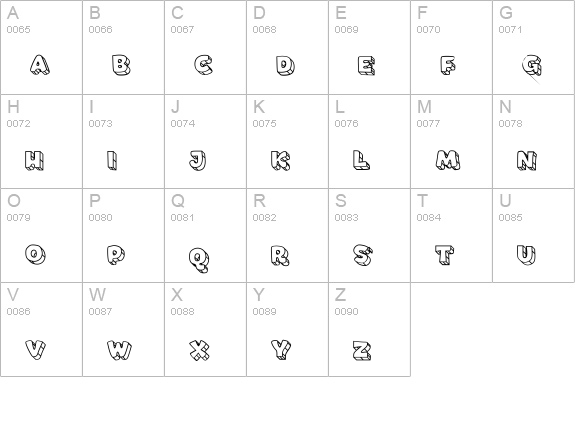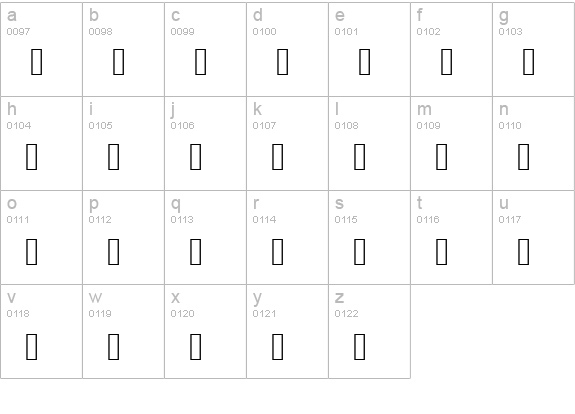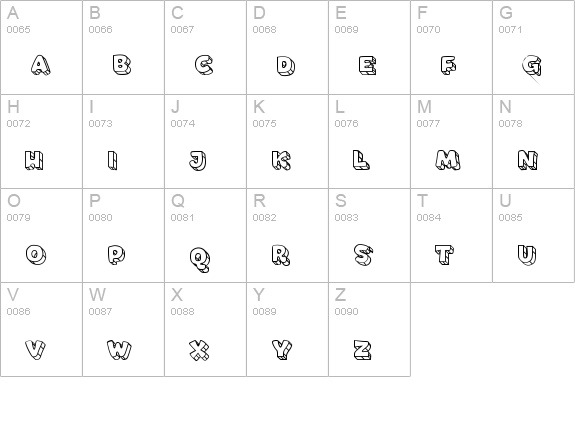
BLOCKHEAD Font Details
Introducing BLOCKHEAD font, a captivating typeface that is sure to make a bold statement in any design project. With its strong and distinctive letterforms, BLOCKHEAD exudes a sense of confidence and creativity, making it the perfect choice for those seeking a unique and eye-catching font. What sets BLOCKHEAD apart is not just its striking appearance, but also the fact that it is available to download for free at FontsMarket.com. That's right, this exceptional font can be yours without any cost, allowing you to enhance your designs with a touch of originality and style. Whether you are working on a poster, logo, website, or any other creative endeavor, BLOCKHEAD will effortlessly elevate your design to new heights. Its clean lines and geometric shapes give it a modern and edgy feel, while still maintaining a sense of approachability and readability. The versatility of BLOCKHEAD font is truly remarkable, as it can be used in a wide range of projects and applications. From headlines to body text, this font adapts seamlessly, ensuring that your message is conveyed with clarity and impact. With its generous character set, BLOCKHEAD offers a variety of weights and styles, allowing you to experiment and find the perfect combination for your design needs. Whether you prefer a bold and commanding look or a more subtle and refined approach, this font has got you covered. So don't miss out on the opportunity to add BLOCKHEAD font to your collection. Visit FontsMarket.com today and experience the freedom of downloading this extraordinary font for free. Let BLOCKHEAD bring your designs to life and leave a lasting impression on your audience.